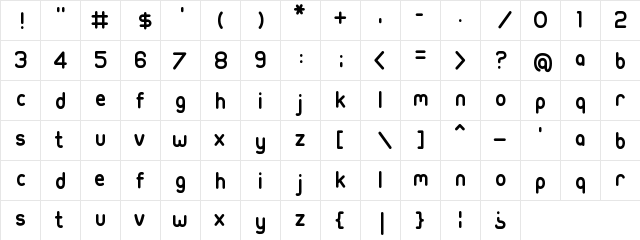
Ubuntu-Title Title Font Preview
Ubuntu-Title Title
Ubuntu-Title Title Font Details
Design Context for Ubuntu-Title Typeface
Ubuntu-Title is a composed and adaptable typeface that performs quietly and consistently across a wide range of design contexts.